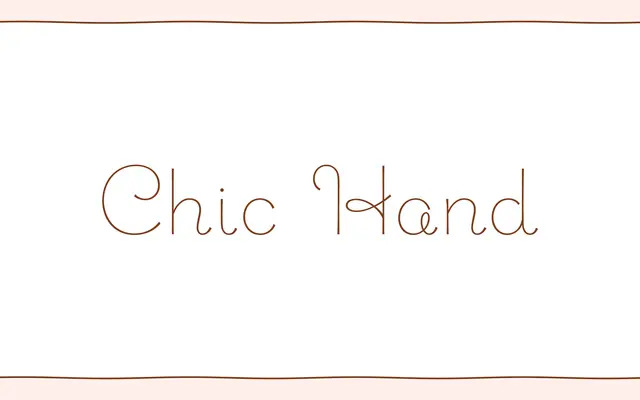
Chic Hand
A casual handwritten script with ligatures aimed at feminine and friendly design contexts.
Chic Hand is a handwritten-style script with ligatures, designed for a warm and approachable feel. It suits packaging, greeting cards, social media graphics and branding where an informal, personal tone is needed. The style leans distinctly feminine and cute, narrowing its range but sharpening its appeal within that niche.
Chic Hand is a casual handwritten script with a warm, informal character; the presence of ligatures and a friendly aesthetic place it firmly in the casual script subcategory.